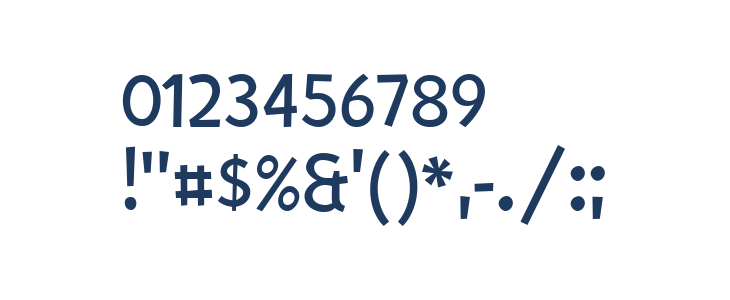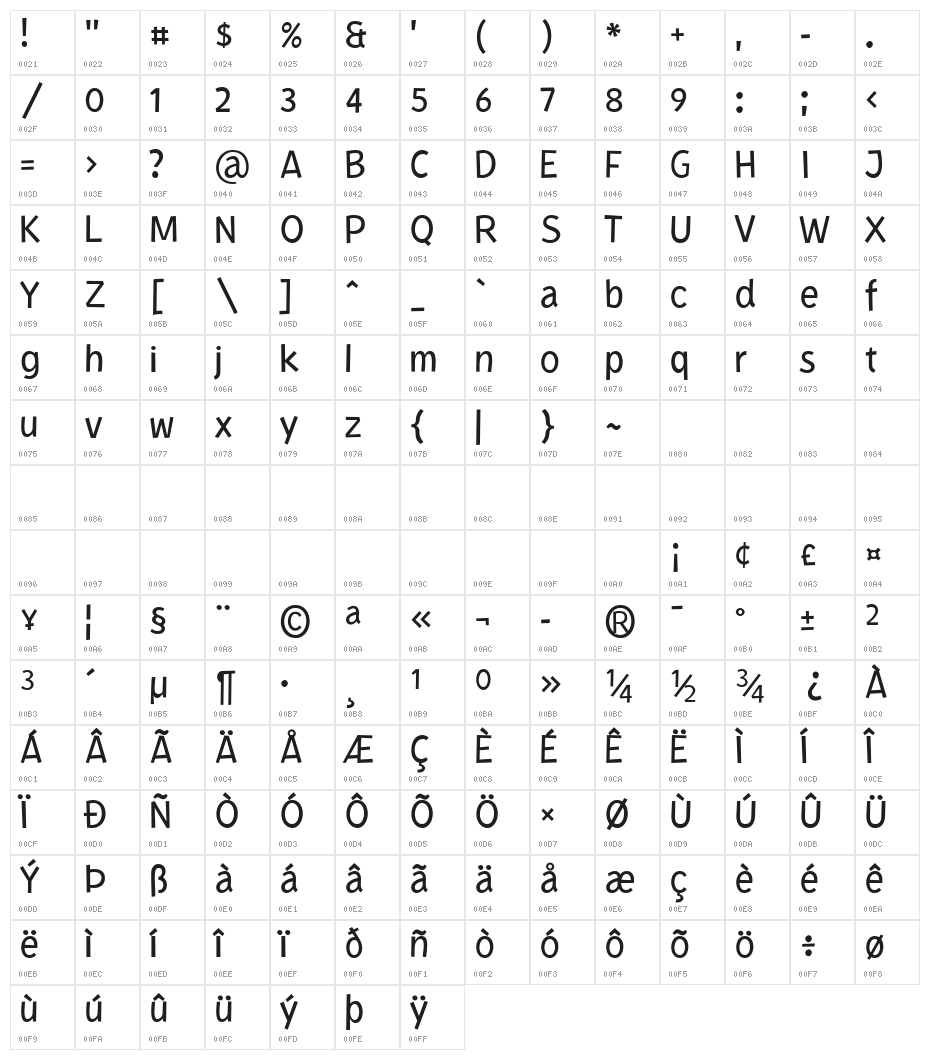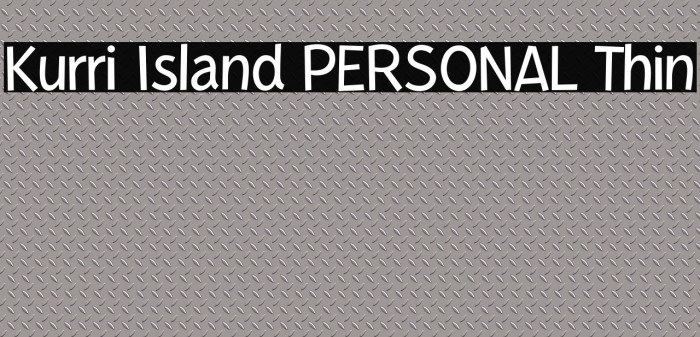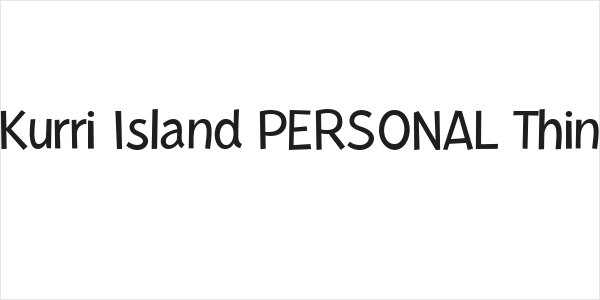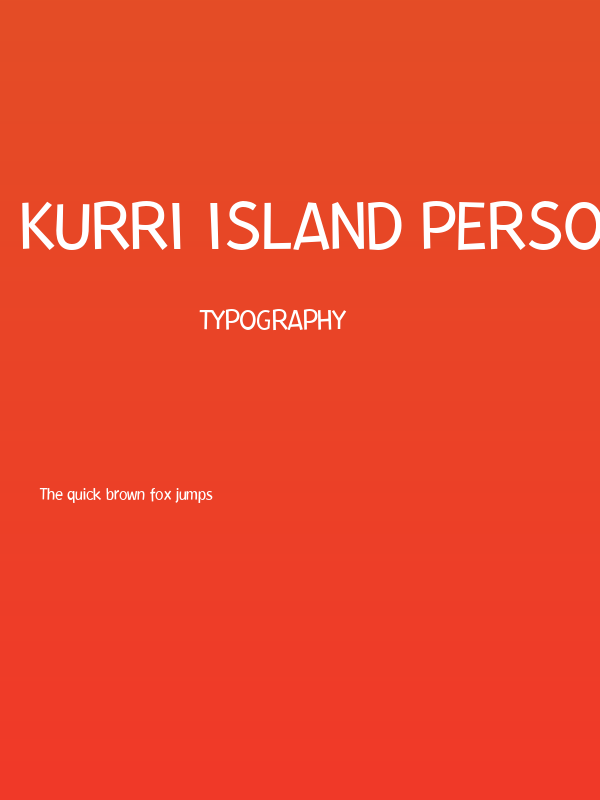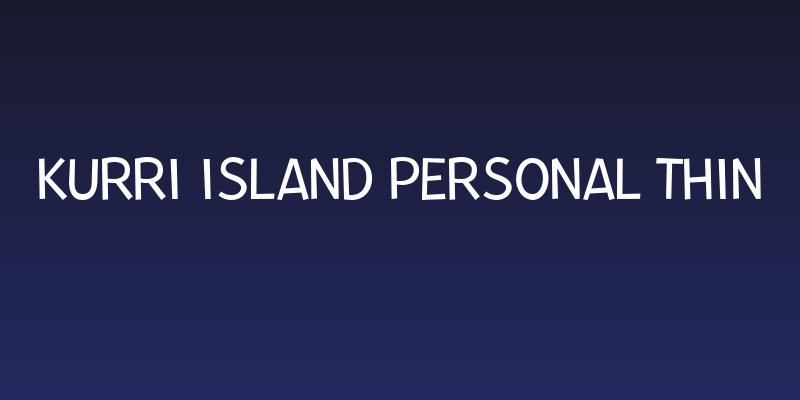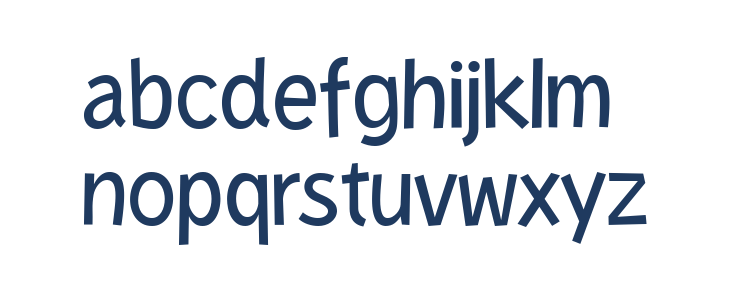
Kurri Island PERSONAL Thin Font
This font features a playful and casual style with a handwritten appearance. The characters are slightly irregular, adding a whimsical touch to the overall design. The strokes are consistent in thickness, providing a uniform look across all characters. The uppercase letters are bold and prominent, while the lowercase letters maintain a friendly and approachable feel. Numerals are clear and easy to read, matching the playful aesthetic of the alphabet. Special characters are well-integrated, maintaining the font's cohesive style. This font is ideal for projects that require a fun and informal vibe.
Overall StyleCasual
Use CaseHeadlines, Logos, Informal Text
Proposed ProjectsIdeal for children's books, greeting cards, playful branding, and informal invitations.